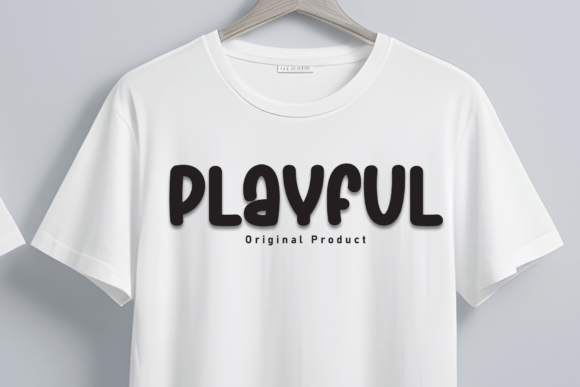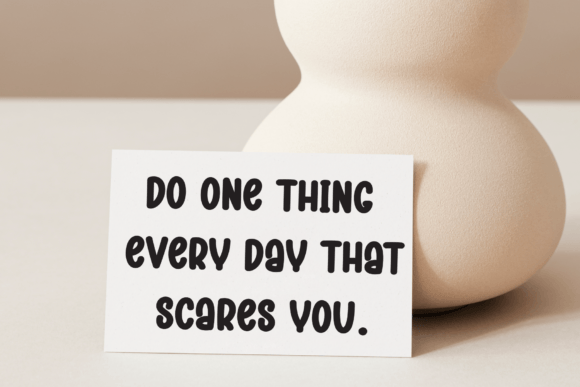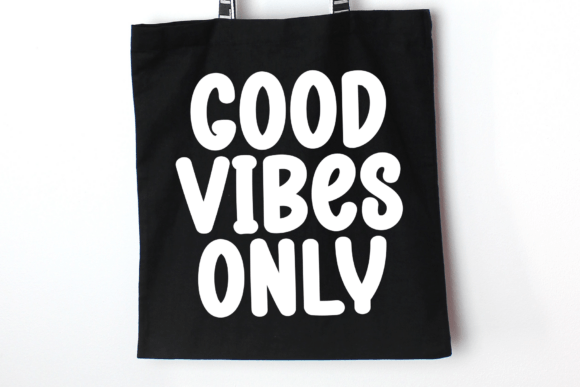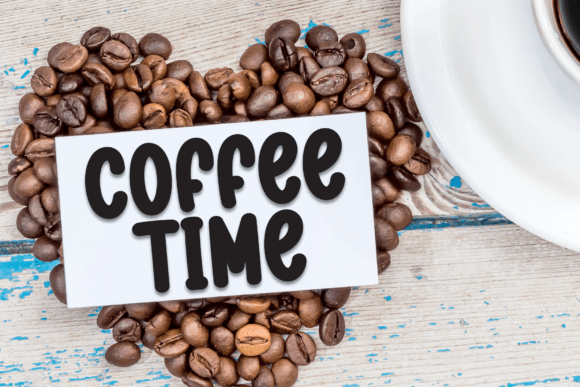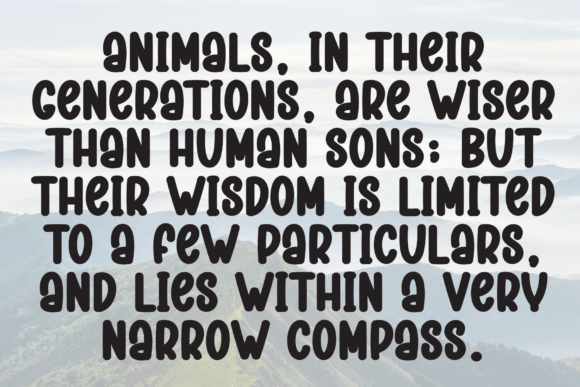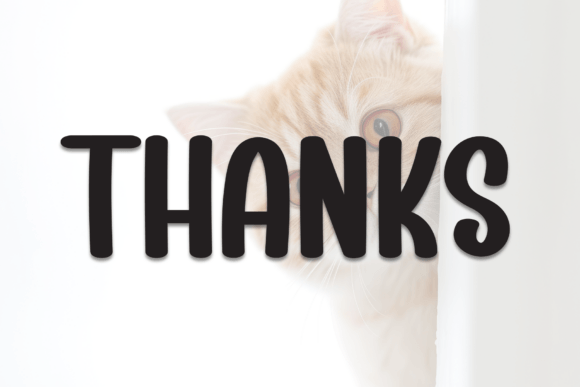
Introduction to Cute Cats Font Font
Fonts play a crucial role in design, and the Cute Cats Font font is a typeface that brings both character and versatility to any project. Whether you’re working on a branding project, a website, or a print design, the Cute Cats Font font offers a unique style that can elevate your work.
Cute Cats is a sweet and friendly handwritten font.
Key Features of Cute Cats Font Font
Why Choose Cute Cats Font Font?
The Cute Cats Font font is more than just a typeface – it’s a design tool that helps you communicate your message with style and clarity. Its unique character set and versatile design make it suitable for a wide range of applications, from elegant invitations to bold headlines.
With its carefully crafted letterforms and balanced proportions, the Cute Cats Font font ensures readability and visual appeal across all mediums.
What makes Cute Cats Font font special?
The Cute Cats Font font stands out with its unique design, exceptional readability, and versatility across various design applications.